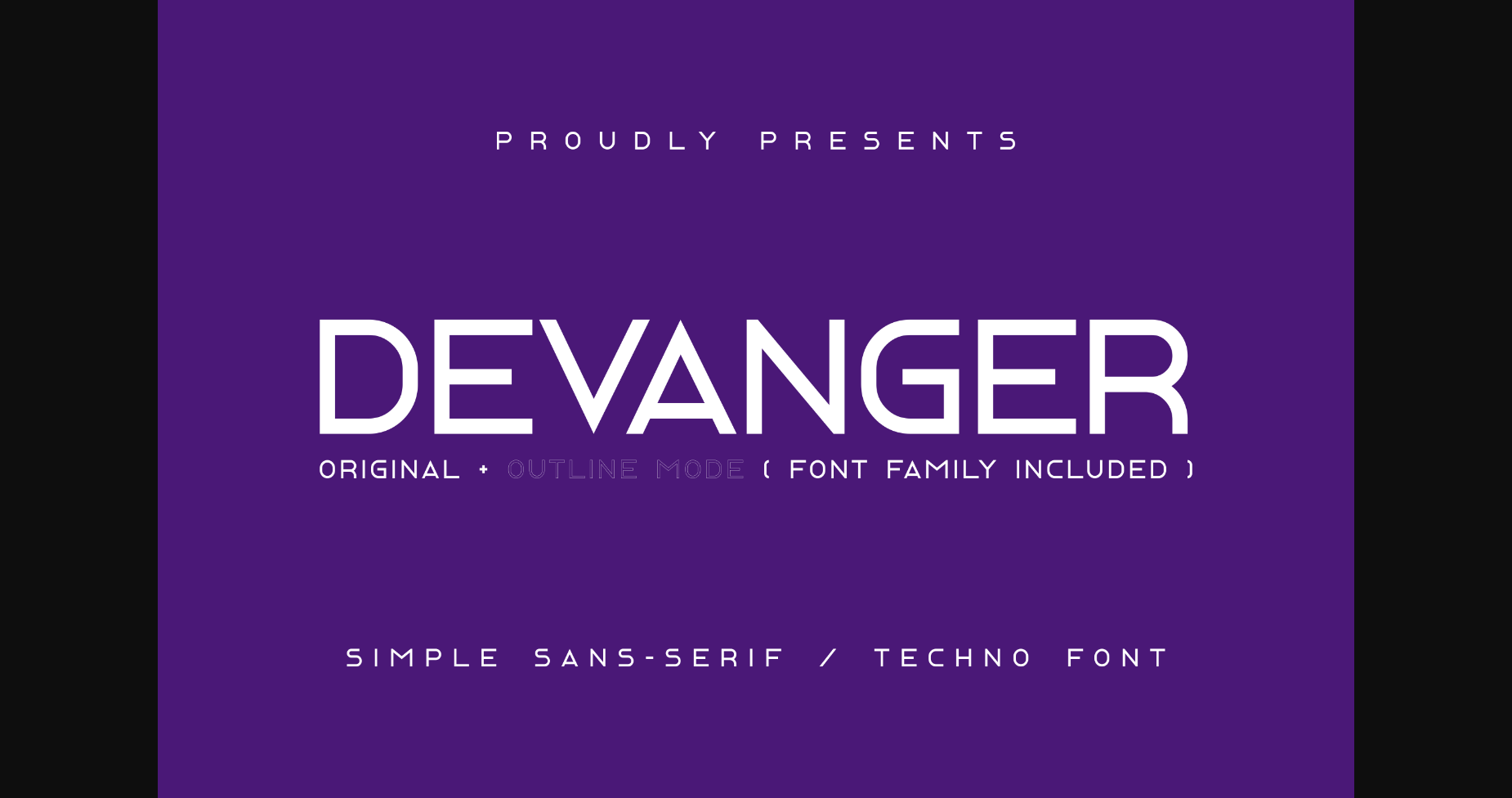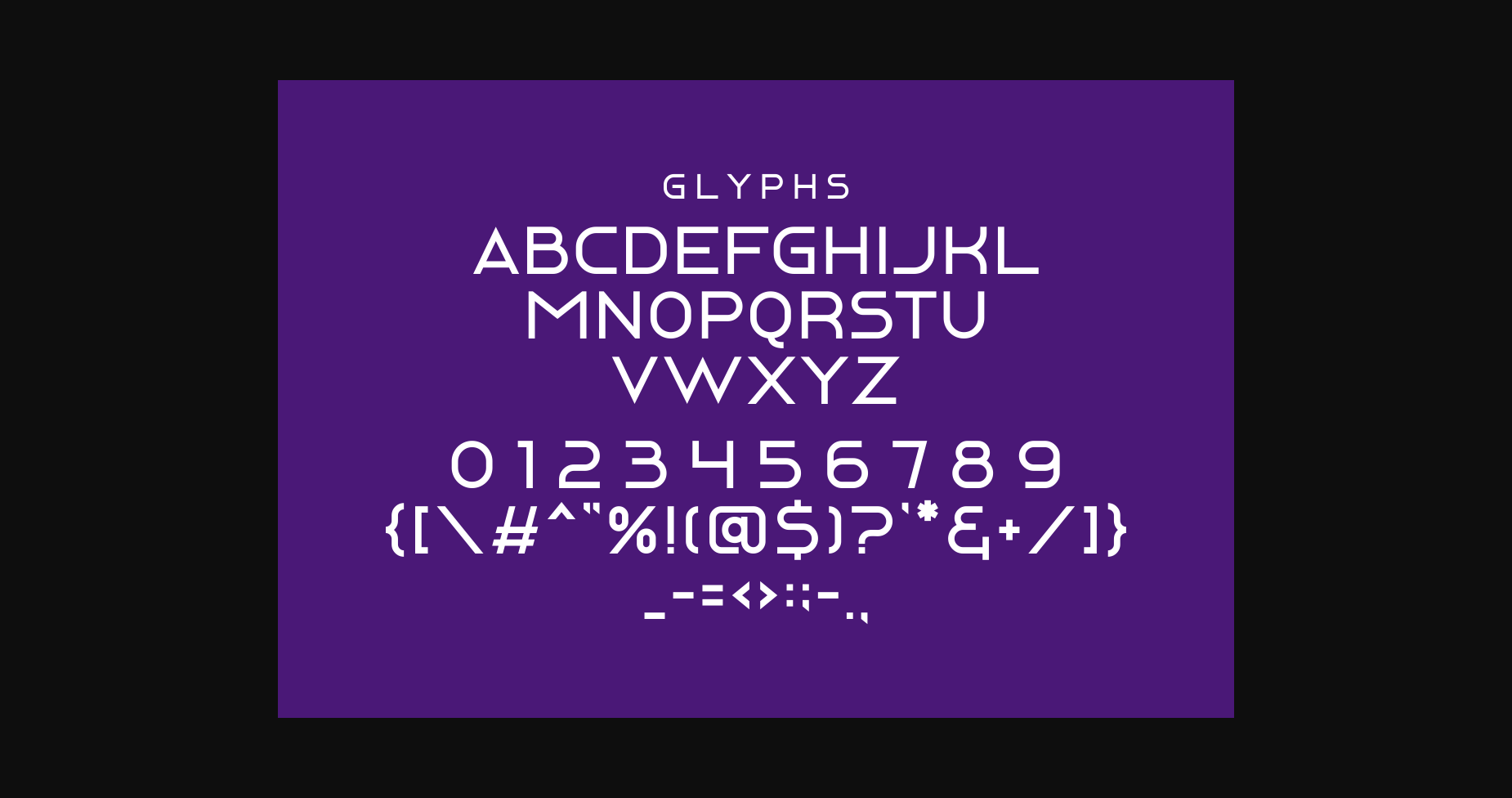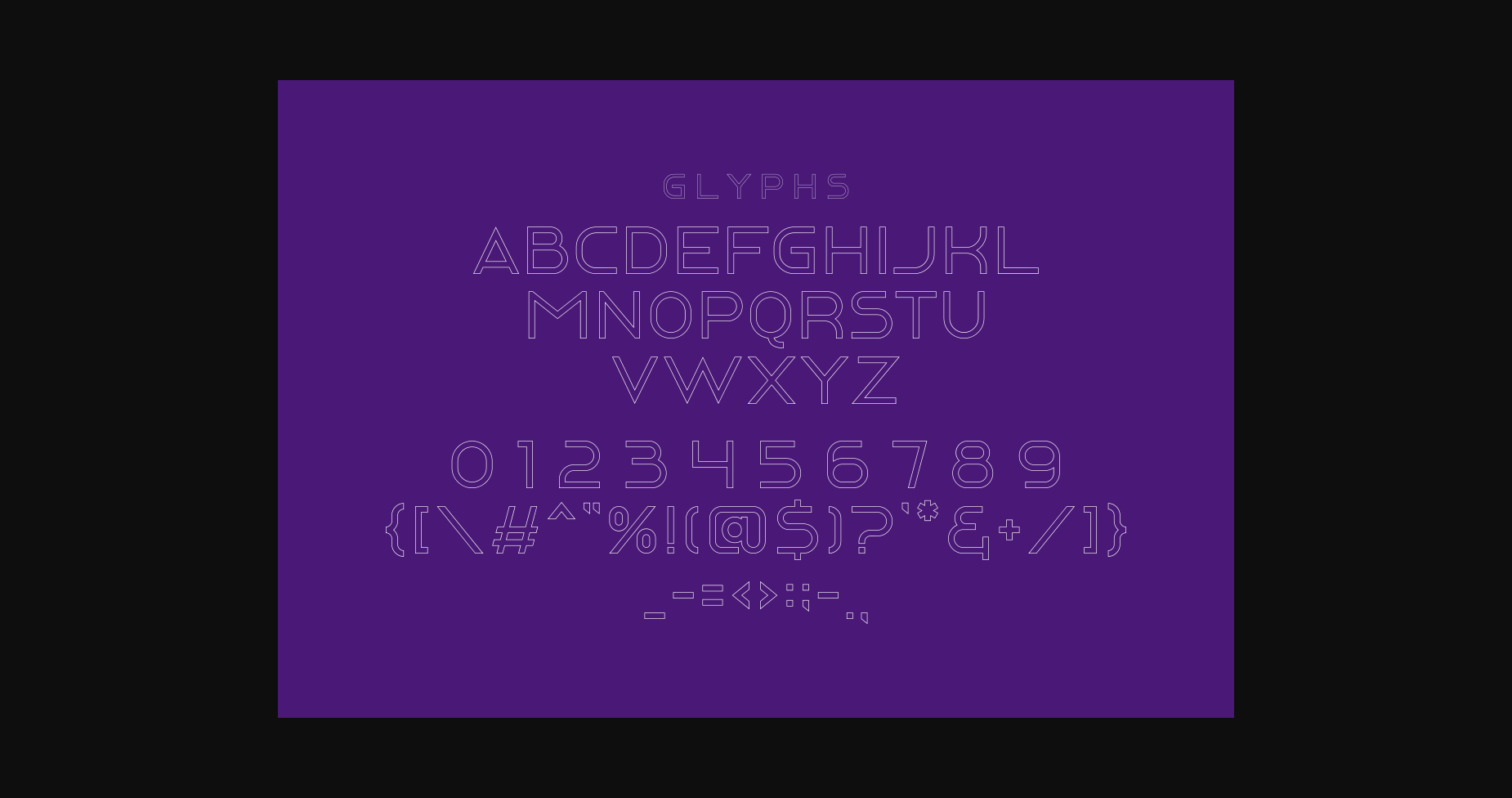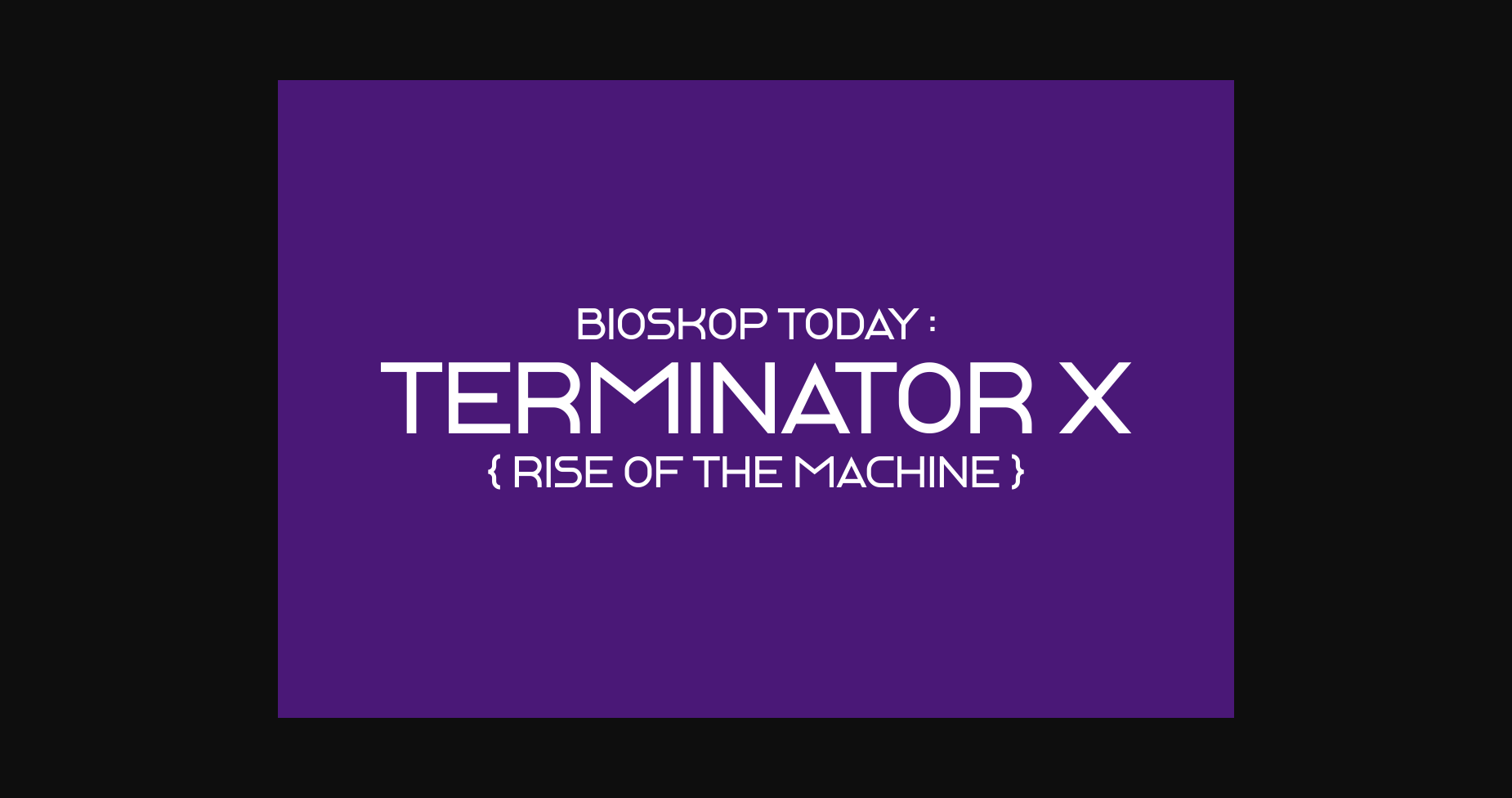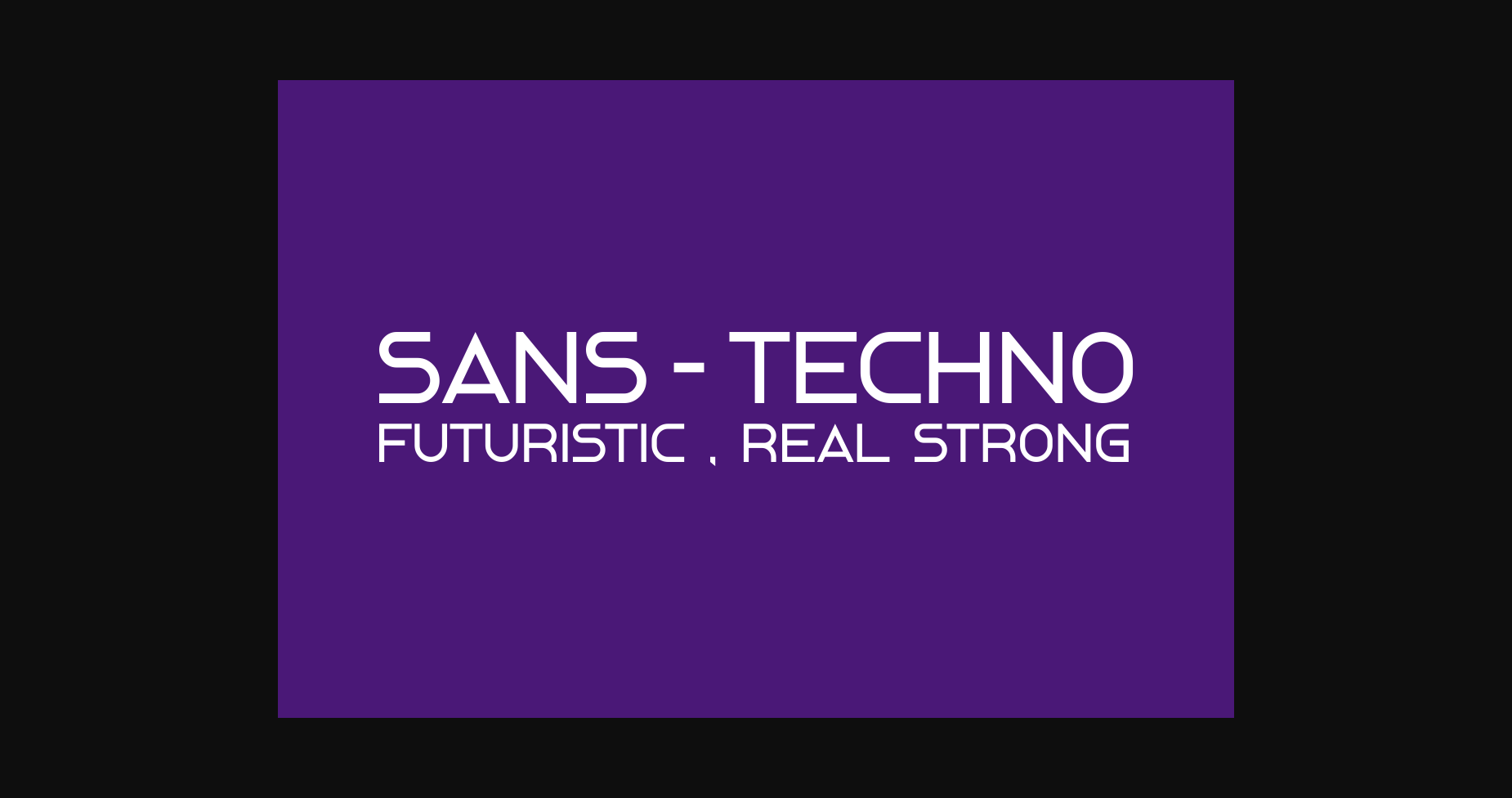
About Devanger Font
Devanger is a modern and eye-catching sans-serif font. With its clean lines and contemporary design, this font is perfect for creating sleek and modern designs that demand attention. Ideal for branding, editorial design, and any project that requires a touch of class and sophistication.